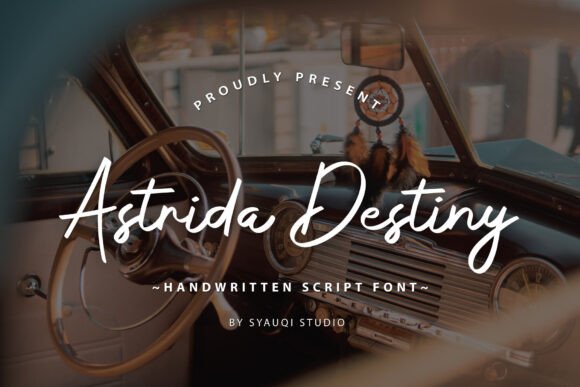
Astrida Destiny: Elevate Your Brand Identity
I still remember the afternoon I sat in my small studio, surrounded by half-printed thank-you cards and blank packaging labels for a local artisan candle maker. She had beautiful products—soy wax blends with delicate floral notes—but her branding felt disconnected. The logo was rigid, the tags were generic, and the overall vibe lacked the warmth she poured into every jar. We needed a change, something that could bridge the gap between her handmade craftsmanship and a polished, professional look. That is when we turned to Astrida Destiny, a script font that instantly transformed our approach to her brand identity. If you are a small business owner or creative consultant looking to refine your visual presence, understanding how Script Handwritten styles like this can elevate your Fonts selection is crucial for standing out in a crowded market.
Transforming Product Labels with Astrida Destiny Elegance
When we first applied Astrida Destiny to the candle labels, the difference was immediate. This typeface is not just another digital asset; it is a design tool that brings timeless elegance meets contemporary sophistication to everyday items. For product creators, especially those in the beauty, wellness, or gourmet food sectors, the label is often the first point of contact with a customer. Using a premium Script Handwritten font allows you to convey quality and care before the product is even opened. Astrida Destiny features meticulous attention to detail in its curves and connections, making it ideal for short phrases, product names, or signature tags on packaging design. Unlike cluttered or overly decorative options, this font maintains readability while adding a layer of luxury. Whether you are designing skincare bottles, bakery boxes, or boutique clothing tags, integrating Astrida Destiny ensures your packaging feels intentional and high-end. It turns a simple sticker into a memorable brand moment, encouraging customers to share their purchases on social media because the aesthetic is simply too good to ignore.
Creating Consistent Social Media Graphics with Script Fonts
In today’s digital landscape, your Instagram feed and online shop banners are your storefront windows. Many entrepreneurs struggle to maintain a cohesive look across these platforms, often mixing too many styles that dilute their brand message. By adopting Astrida Destiny as a core element of your digital strategy, you create a recognizable visual thread. This Script Handwritten typeface works exceptionally well for headlines on promotional graphics, quote overlays, and announcement posts. When paired with a clean sans serif font for body text, it creates a balanced hierarchy that guides the viewer’s eye without overwhelming them. For instance, a café using Astrida Destiny for their daily special announcements on Instagram Stories can evoke a sense of warmth and invitation that standard bold fonts simply cannot match. The fluidity of the letters mimics natural handwriting, which builds trust and relatability with your audience. It suggests that there is a human behind the brand, someone who cares about the details. This emotional connection is vital for engagement, turning passive scrollers into loyal followers and eventually, paying customers. Remember, consistency in your choice of Fonts across all digital touchpoints reinforces brand recall and professionalism.
Enhancing Wedding Invitations and Event Branding with Astrida Destiny
Beyond retail products, Astrida Destiny shines in the realm of event stationery and editorial design. Wedding planners, photographers, and independent designers often seek typefaces that exude romance and refinement without appearing outdated. Introducing our new script font Astrida Destiny offers a solution for those aiming to create invitations, save-the-dates, and menu cards that feel both classic and fresh. The contemporary sophistication embedded in its design makes it versatile for modern minimalist weddings as well as more traditional, ornate celebrations. When used for couple names or key dates, the font’s elegant loops and tails add a decorative flair that reduces the need for excessive graphic elements. This simplicity allows the paper quality and printing techniques, such as foil stamping or embossing, to take center stage. For businesses serving the wedding industry, offering templates that feature Astrida Destiny can be a significant selling point. Clients are drawn to designs that look expensive and thoughtful. By leveraging this Script Handwritten style, you provide a service that feels bespoke and tailored, enhancing the perceived value of your design packages. It is not just about choosing pretty letters; it is about selecting a typeface that supports the narrative of love and celebration.
Pairing Astrida Destiny for Professional Logo Design and Web Headers
A common question among business owners is how to integrate a script font into a broader brand system without it looking out of place. The key lies in strategic font pairing. Astrida Destiny is designed to work harmoniously with simpler, structured typefaces. For logo design, consider combining it with a lightweight sans serif font to create a contrast that highlights the uniqueness of the script while ensuring legibility. This combination is particularly effective for web headers and navigation menus where clarity is paramount. While Astrida Destiny is stunning for display text, it should be used sparingly in long paragraphs to avoid reader fatigue. Instead, reserve it for accents, signatures, and short titles. In web design, using this font for hero section headlines can immediately set the tone of the site, whether it is a cozy bed-and-breakfast or a high-end consulting firm. The versatility of Fonts like this allows for a dynamic user experience that feels curated rather than templated. When building your brand identity, think of Astrida Destiny as the jewelry of your design suite—it adds the perfect finishing touch that ties everything together. Always test your pairings on mobile devices to ensure that the intricate details of the script remain clear and impactful on smaller screens.
Maximizing Commercial Value with High-Quality Typography Assets